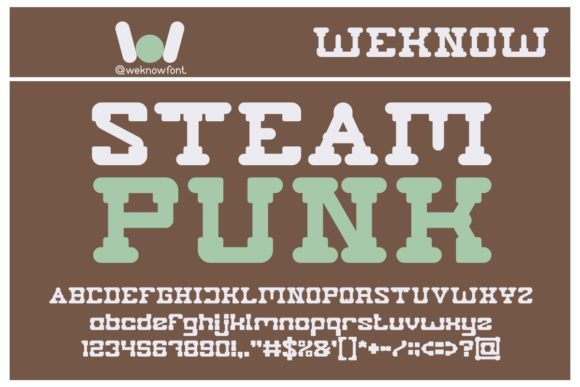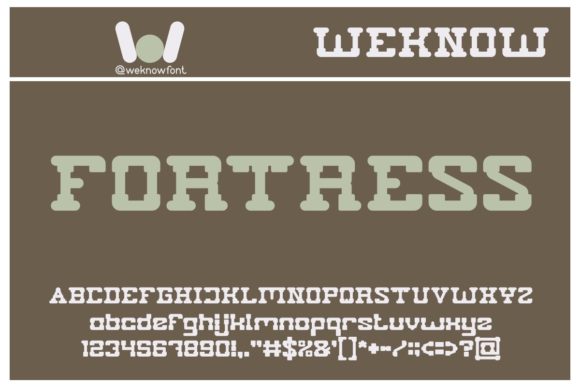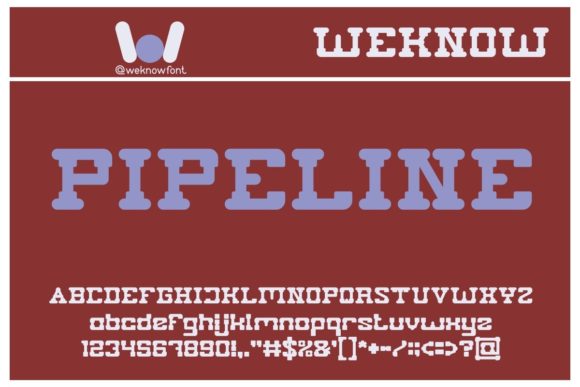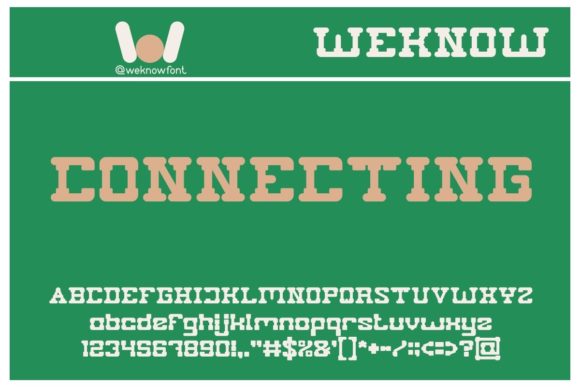
Introduction to Plumbing Font
As a designer, you’ve probably been there – staring at a blank canvas, brainstorming ideas for a new project, and searching for the perfect font to bring it to life. One moment that stands out in my mind was when I stumbled upon the Plumbing Font. Its sleek, modern design immediately caught my attention, and I knew I had to learn more about it.
Designed to make a statement, the Plumbing Font is a high-quality display font that’s perfect for logos, logotypes, and headline fonts. Its versatility makes it an invaluable resource for designers, whether you’re working on a corporate identity, apparel design, or even a YouTube video title. With its transparent background and free download option, it’s a design resource that’s hard to resist.
Key Features of Plumbing Font
- High-quality design resource with a unique and creative style, ideal for a wide range of projects.
- Transparent background, making it easy to use in various design scenarios.
- Perfect for designers, artists, and creatives working on projects that require a distinctive and modern aesthetic.
- Comes in 2 different font styles, allowing for versatility and customization.
Honest Review: Plumbing Font
As a designer, I’m always on the lookout for high-quality design resources to elevate my creative projects. Recently, I stumbled upon the Plumbing Font, and I’m excited to share my honest review.
What works well: ✨ The Plumbing Font is incredibly versatile, making it perfect for a wide range of creative projects, from logos to brochures. Its unique, industrial design aesthetic is both stylish and functional. The font is also available for free download, making it an excellent addition to any designer’s toolkit.
One of the standout features of the Plumbing Font is its transparent background, allowing for seamless integration with any design. The font is also highly customizable, with a range of weights and styles to choose from.
However, there are some limitations to consider: ⚠️ The font may not be suitable for all design projects, particularly those requiring a more traditional or elegant aesthetic. Additionally, the font’s industrial design may not appeal to every designer or client.
Overall, I’m impressed with the Plumbing Font and would recommend it to designers looking for a high-quality, versatile font for their creative projects.
- Unique industrial design aesthetic
The Plumbing Font is a unique and creative design resource ideal for various projects. It features a high quality, transparent background that can be easily customized to fit your needs.
Some tips for getting the most out of the Plumbing Font include using it in combination with other design elements, experimenting with different font sizes and colors, and customizing the font to fit your brand identity.
Common Use Cases for Plumbing Font
The Plumbing Font is ideal for a variety of creative projects, including logo design, icon creation, and text-based graphics. It’s also a great resource for designers looking for a unique and high-quality font for their designs.